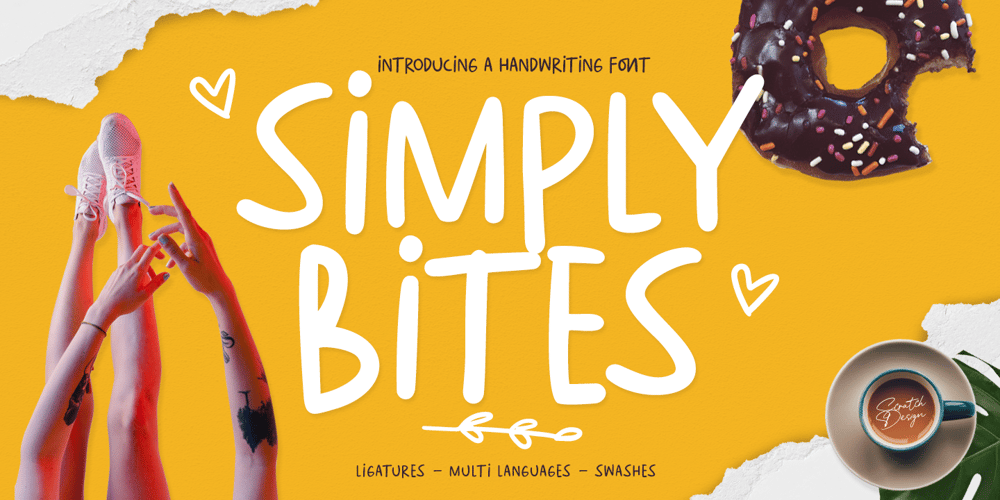
Simply Bites Font Family was designed by Gitayogi Irhandi and published by Scratch Design. Simply Bites contains 1 styles and family package options. Introducing Simply Bites font. Simple and cute handwriting monoline sans serif font! This font style uses all caps characters and would be perfect for party invitations, child books, menu design, baby showers, birthday cards, posters, quotes, social media design, comics, packaging, and more.Features: Accents (Multilingual characters) Ligatures Swashes Numerals and PunctuationsSo, enjoy the Simply Bites and make some cool stuff!